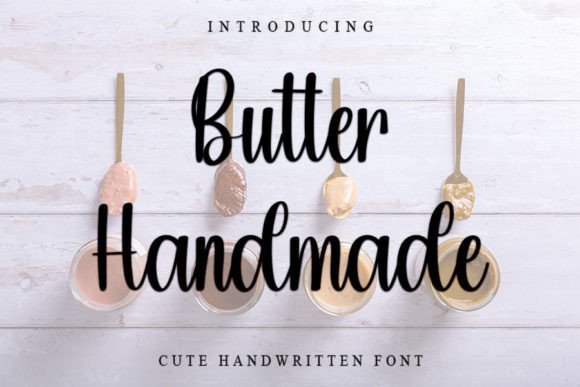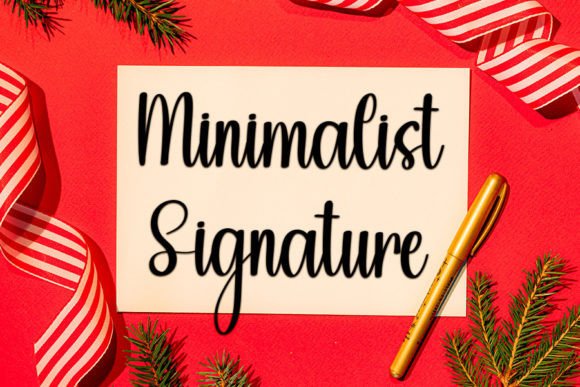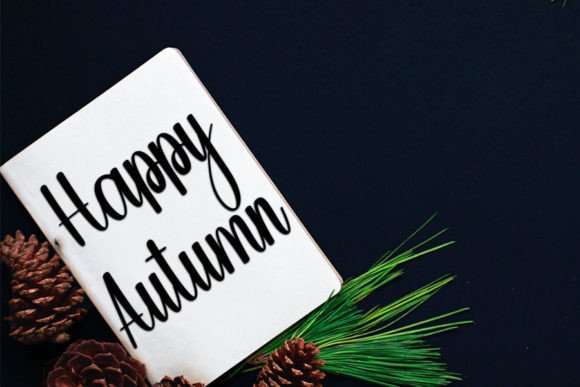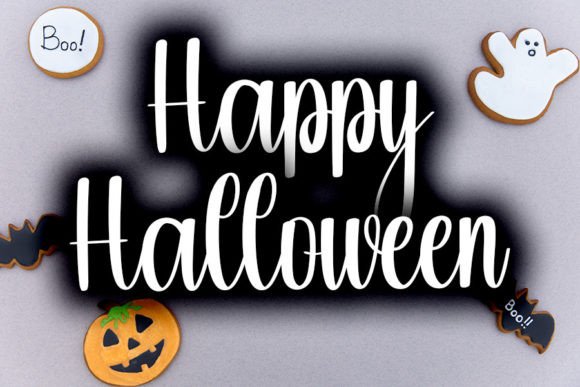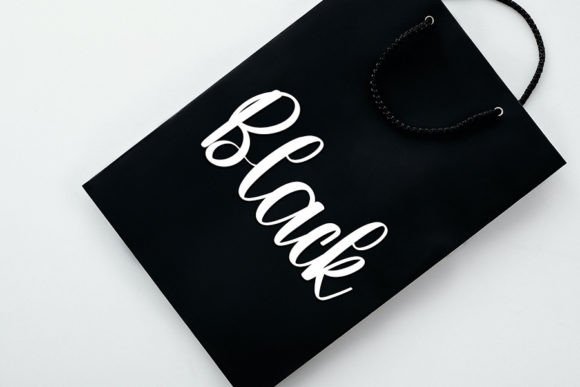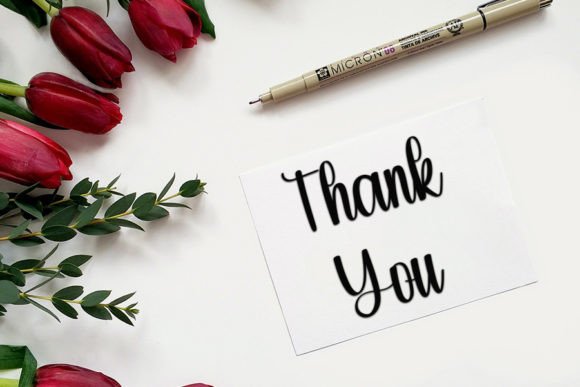
There’s something special about the moment when a project starts to come together – the perfect blend of creativity, inspiration, and a dash of magic. You’re staring at your screen, feeling the excitement build, and suddenly, you know exactly what your design needs: a unique touch that sets it apart from the rest. That’s where the Butter Handmade Font comes in – a beautifully crafted handwritten font that’s as elegant as it is distinctive.
This gorgeous font is designed to bring a touch of whimsy and personality to your projects, making it the perfect choice for creatives who crave something truly unique. With its timeless style and effortless charm, the Butter Handmade Font is sure to elevate your designs and leave a lasting impression. Whether you’re a seasoned designer or just starting out, this font is a valuable addition to your toolkit, offering endless possibilities for creativity and self-expression.
Key Features of Butter Handmade Font
- Unique Characteristics: The Butter Handmade Font features a unique, handwritten style with subtle imperfections, giving it a personal and creative touch.
Butter Handmade Font Review
First off, I love the quirky and playful vibe that this font brings to the table. The ✨ organic feel of the letters and the subtle imperfections make it perfect for branding projects that need a personal touch.
The font has a wide range of characters, including accented letters, punctuation, and numbers, which makes it suitable for a variety of applications. The ✨ OpenType features also allow for some interesting ligatures and swashes, which can add an extra layer of personality to your designs.
- ⚠️ The font can be a bit difficult to read in smaller sizes, especially for longer blocks of text.
Overall, I think the Butter Handmade Font is a great choice for designers who want to add a touch of whimsy to their projects. While it may have some limitations, the benefits far outweigh the drawbacks. With a bit of practice and patience, you can get the most out of this charming font.
Use the Butter Handmade font for creative projects such as wedding invitations, menus, and greeting cards.
Experiment with different font sizes and styles to achieve a unique look.
Pair the font with other creative elements such as illustrations and graphics to enhance your design.
The Butter Handmade font is ideal for:
Menu design for restaurants and cafes
Alternatives to Butter Handmade Font
Pacifico is a beautiful, elegant script font that works well for branding, advertising, and editorial content. It’s perfect for designers who want to add a touch of sophistication and whimsy to their designs. Compared to Butter Handmade Font, Pacifico has a more refined and polished look, making it suitable for high-end projects.
Carolyna Pro is a modern script font that’s perfect for designers who want to create a sense of luxury and elegance in their designs. It’s ideal for branding, packaging, and advertising projects where a high-end look is required. Compared to Butter Handmade Font, Carolyna Pro has a more modern and sleek design, making it suitable for contemporary projects.